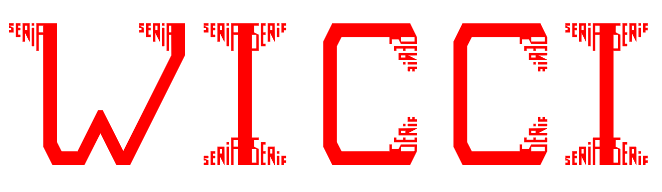
I have taken the competition title "literally" and added serifs ,
at least one serif
to every letter
lol :)
Wicci
This is the first ever serif font that says what it is *ROFL* @ WiccNewSerif.  One can't mistake it for anything else. Well tought out, well done.  Good luck